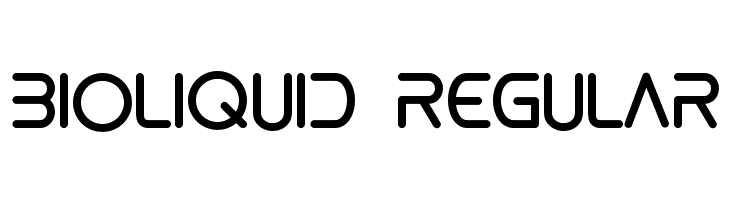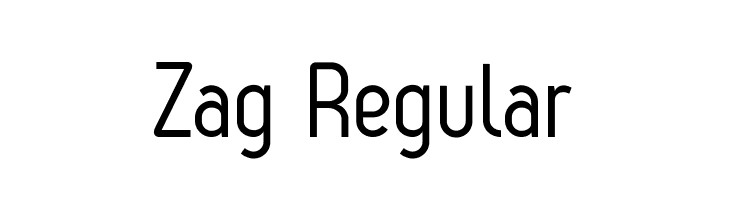
A bold, expressive handwritten font with brush-like strokes and a playful style.
A playful, geometric font with script-like elements and consistent stroke width.
A bold, gothic-inspired font with intricate details and a medieval flair.
A decorative blackletter font with a shadow effect, ideal for gothic or medieval-themed designs.
A bold, playful font with rounded, slanted letterforms and a casual, handwritten style.
A fluid and elegant script font with smooth, flowing lines.
A clean, modern sans-serif font with uniform stroke width and rounded characters.
A bold, dynamic font with sharp, angular edges and a playful, cartoonish style.
A bold, distressed font with a gritty, urban aesthetic.
A modern, light sans-serif font with clean lines and balanced proportions.
A reverse italic font with sharp, clean lines and a modern twist.
A bold, playful handwritten font with energetic curves and loops.
A bold, artistic font with a hand-crafted appearance, perfect for creative projects.
A playful and whimsical script font with smooth, flowing lines and elegant curves.
A bold, geometric font with sharp angles and circular shapes.
A bold, expanded italic font with a modern and dynamic style.
A modern, rounded sans-serif font with clean lines and uniform stroke width.
A sleek, modern font with geometric and minimalist design.
A bold, uncial-style font with sharp serifs and a medieval yet modern aesthetic.
A bold, distressed font with a vintage, rugged appearance.
A bold, playful font with rounded edges and a modern, friendly style.
A thin, elegant script font with graceful, flowing characters.